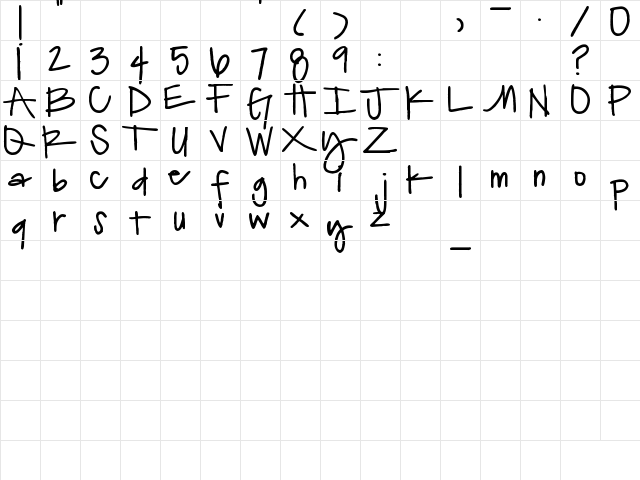
Turtle Club Regular
Design Context for Turtle Club Typeface
Turtle Club is a composed and adaptable typeface that performs quietly and consistently across a wide range of design contexts.